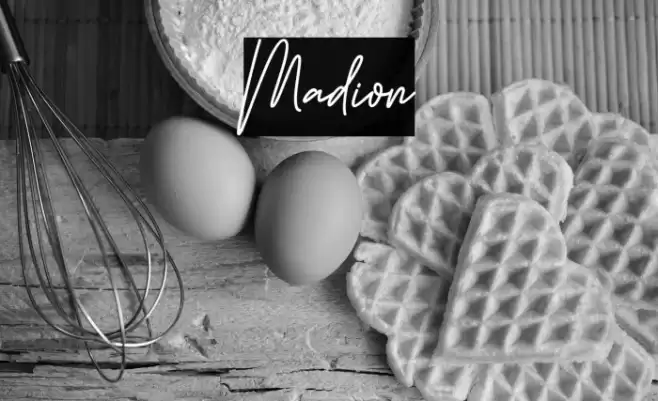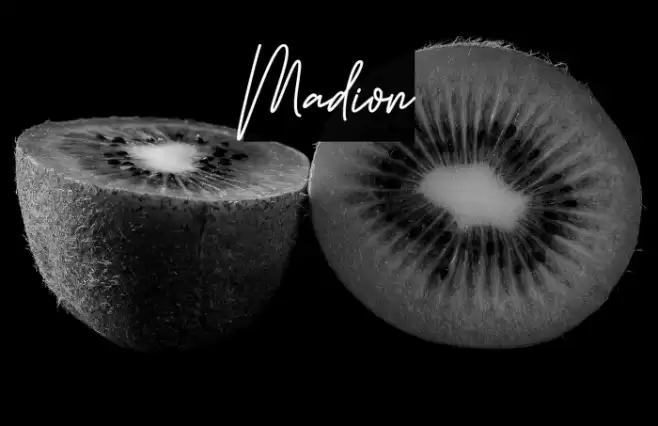
Madion Font
Madion Description
This font features a fluid and elegant script style, characterized by its smooth, flowing lines and a handwritten appearance. The uppercase letters are tall and slightly slanted, giving a sense of movement and grace. The lowercase letters maintain a consistent style, with gentle curves and loops that enhance its cursive nature. The numerals are distinct and maintain the same flowing aesthetic, ensuring readability while preserving the overall style. The special characters are seamlessly integrated, matching the elegant and sophisticated look of the alphabet characters.
| Overall Style | Elegant |
| Use Case | Logos, Invitations, Greeting Cards |
| Proposed Projects | Ideal for wedding invitations, greeting cards, branding projects, and elegant logos. |